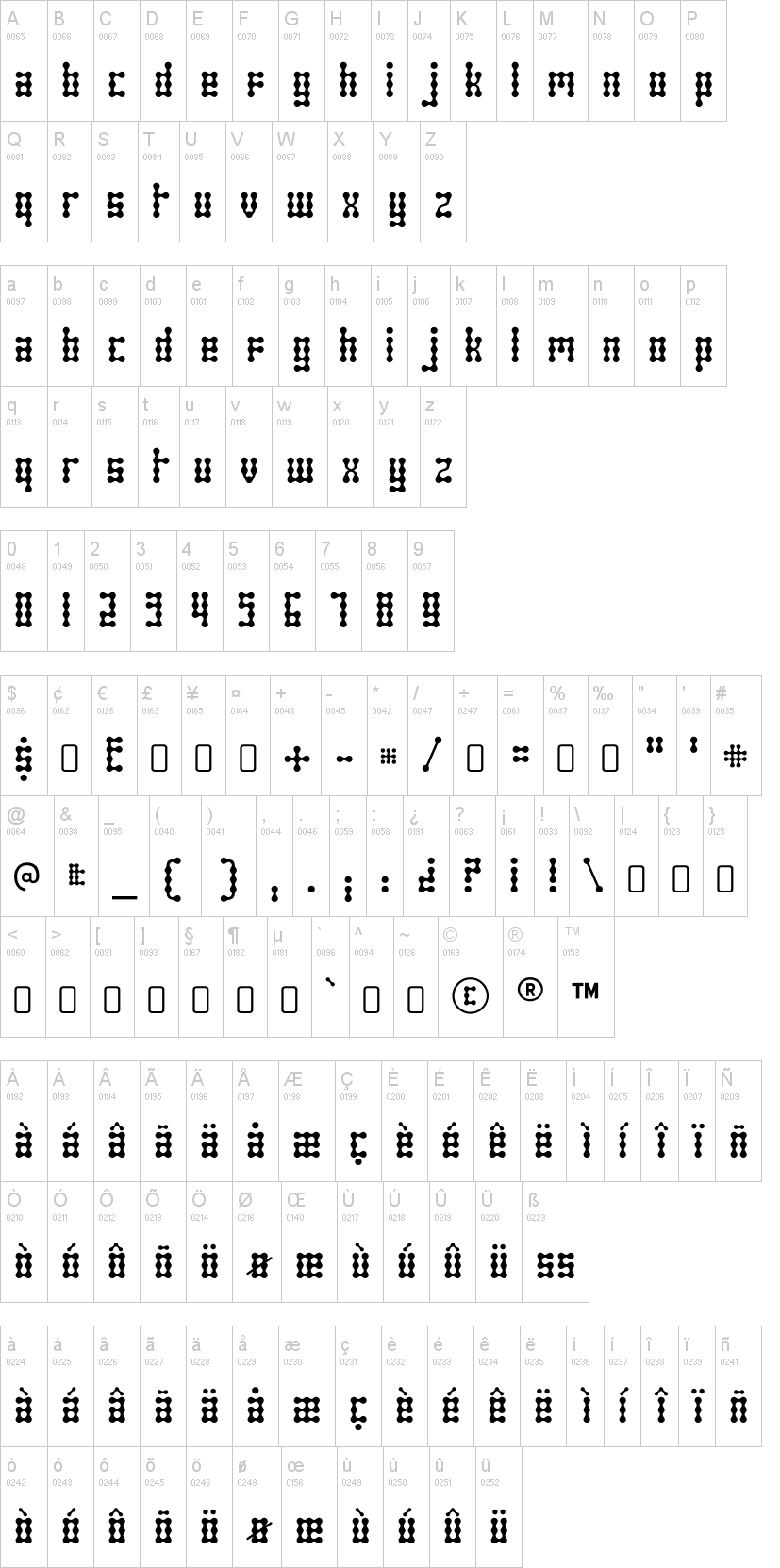
Шрифт Skeletor Stance
Skeletor Stance is a modular font made out of colloidal blobs. Don't forget to read the files inside the zip for details. Updated in 2012.